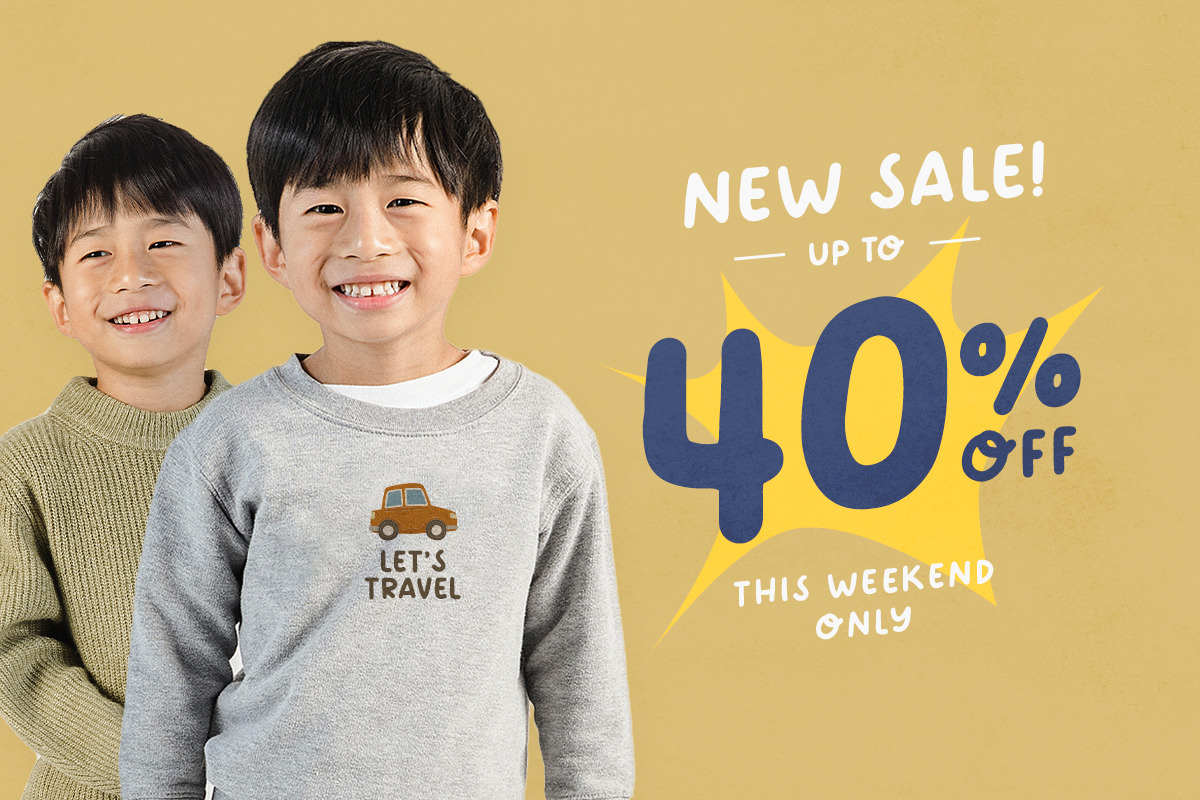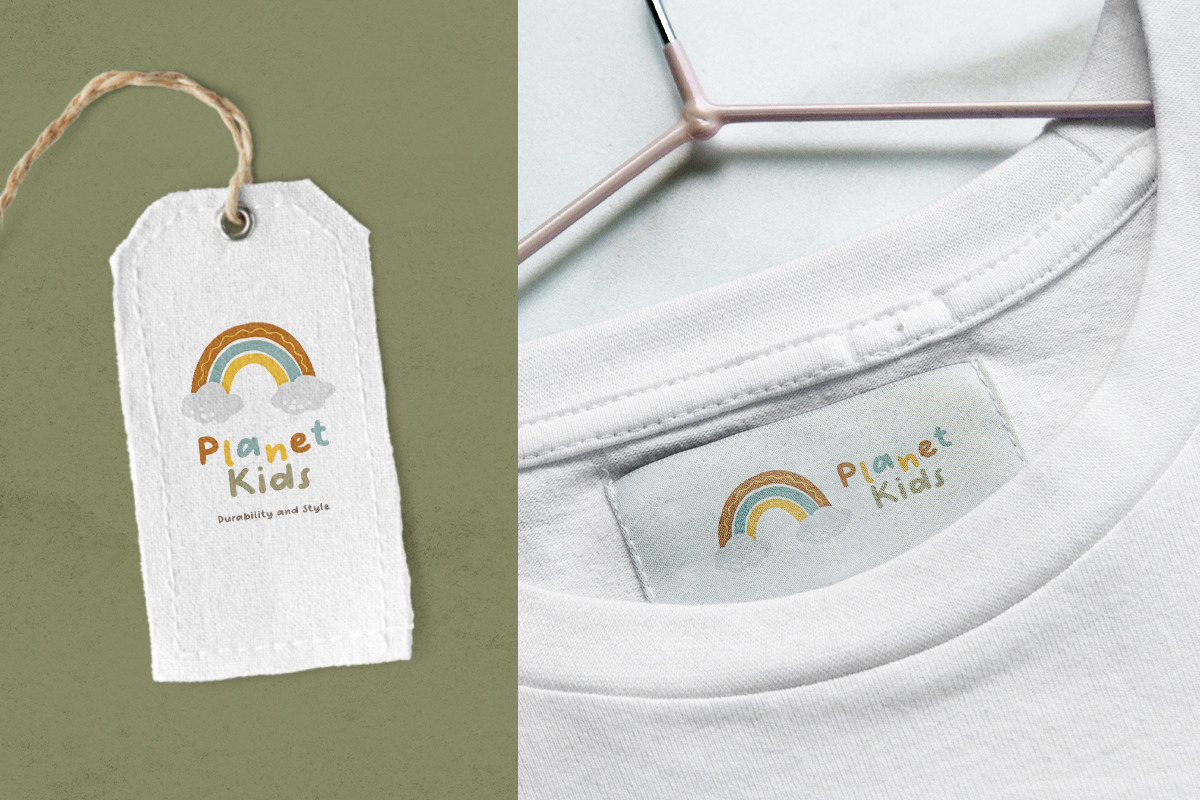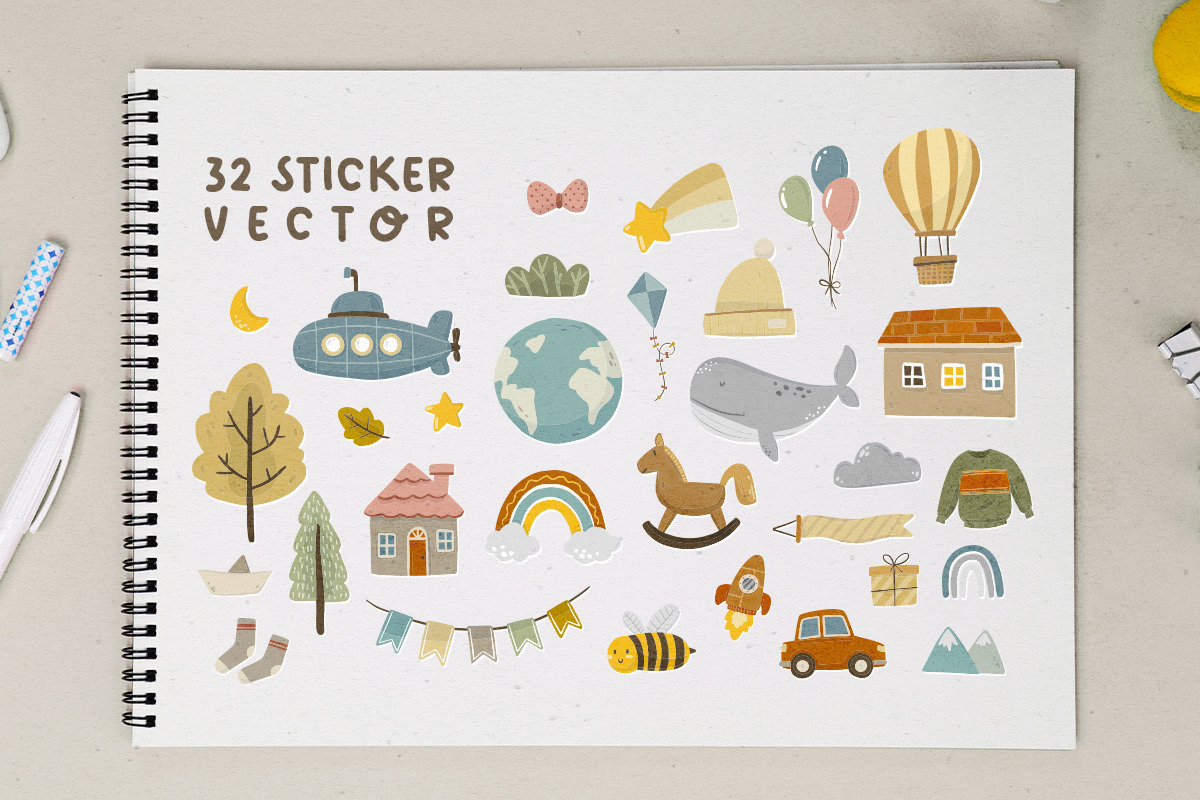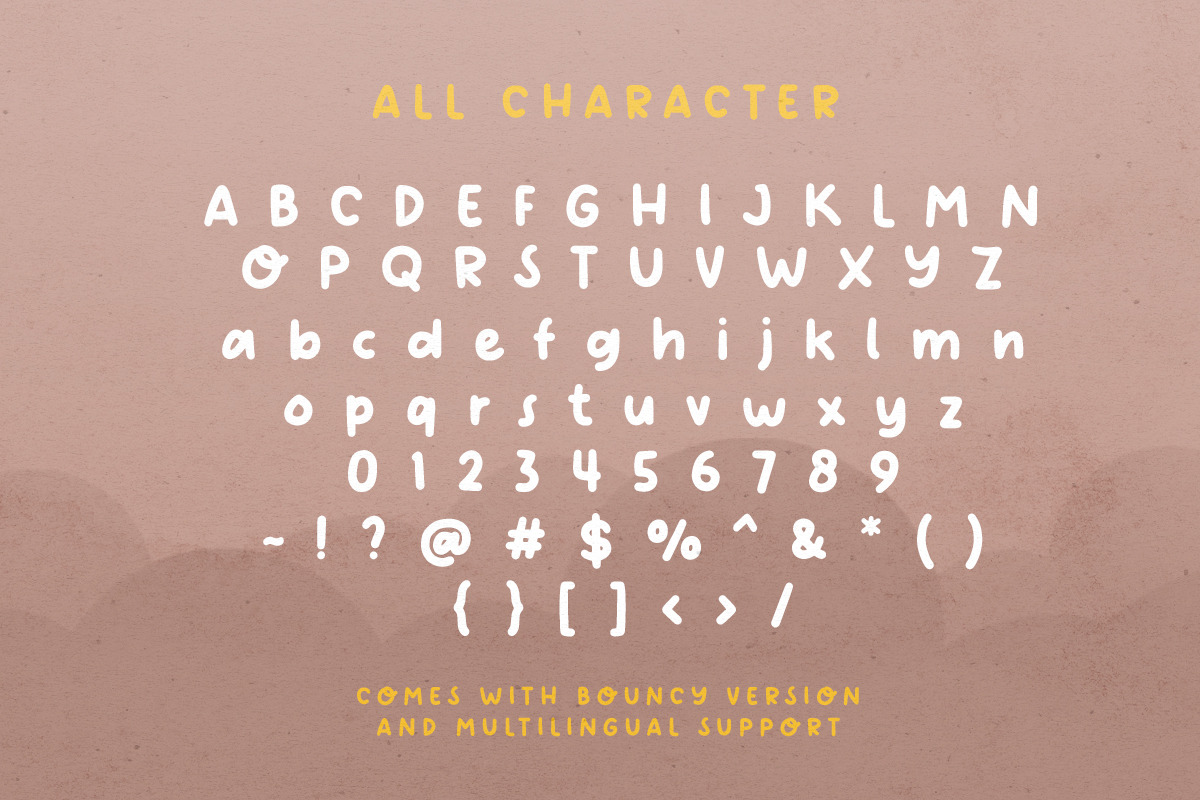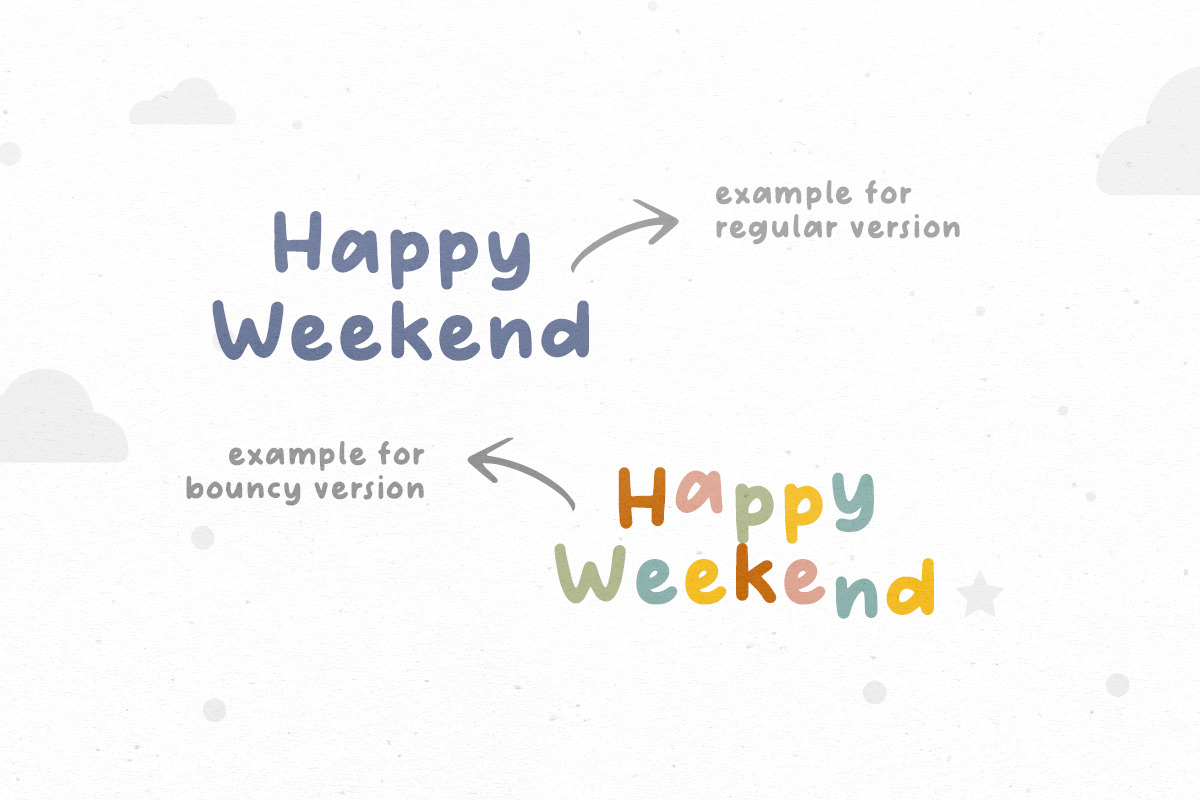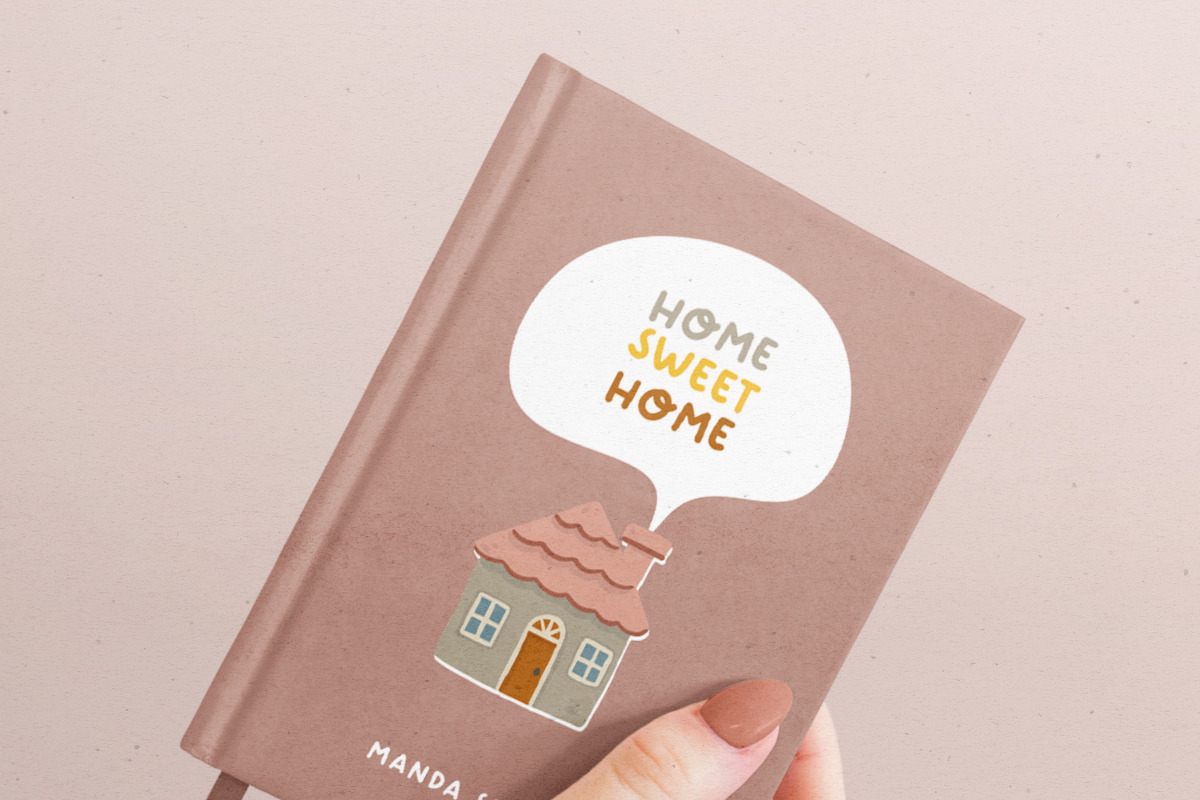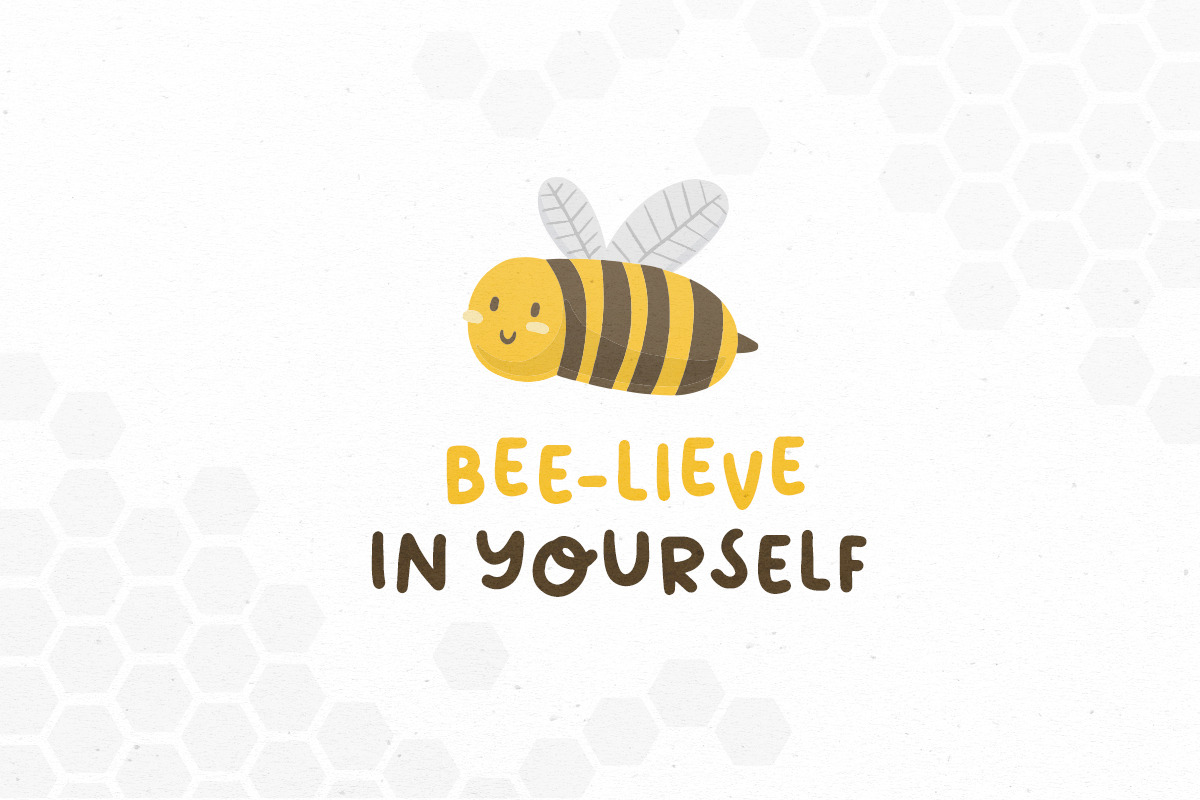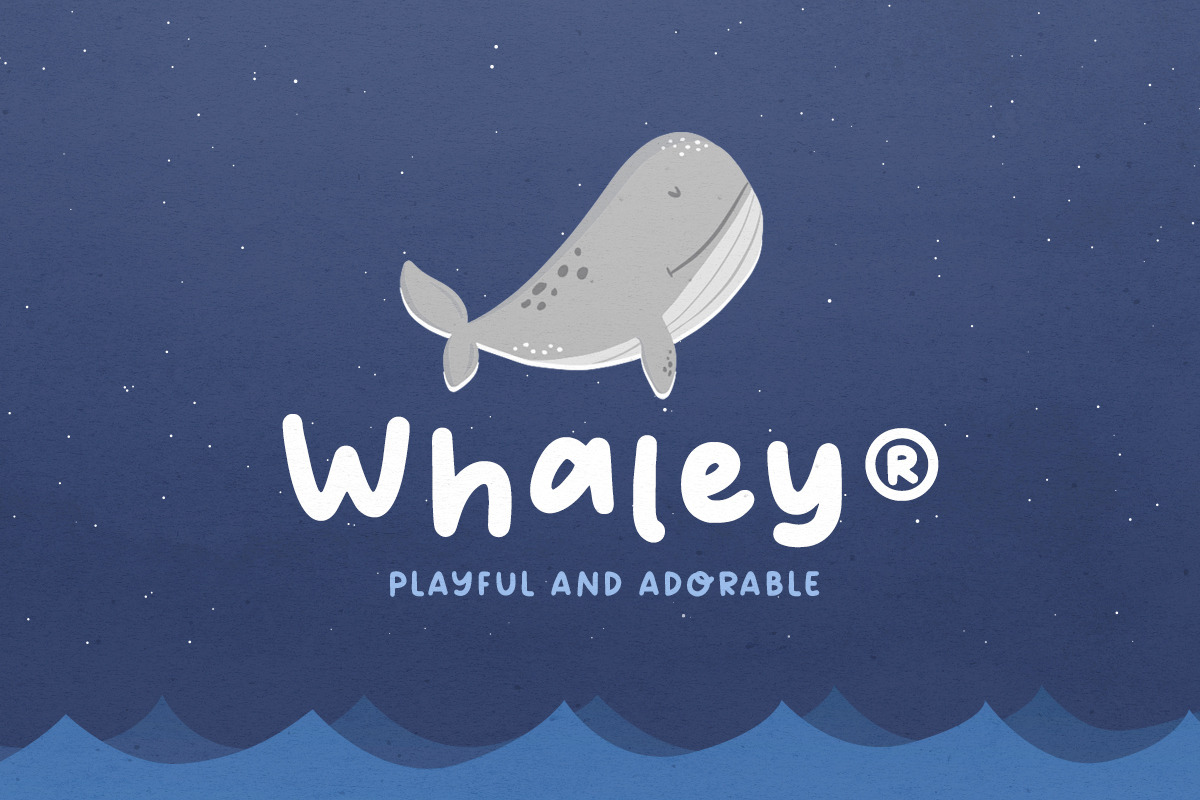
Wonder Kids - Bouncy Sans + BONUS
Wonder Kids is a friendly handwritten sans that comes with bouncy version. You can combine the regular and bouncy font in a same word to make your word looks cute and interesting. You can use this font for many purposes especially for kids and children target such as book cover, merchandise, quotes, or branding. To complement this font, you can use the cute illustration that comes in PNG and AI for free. This font also support multilingual.